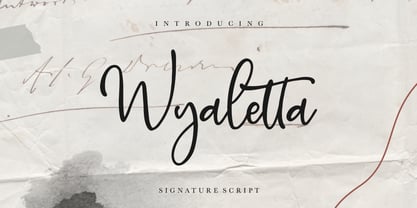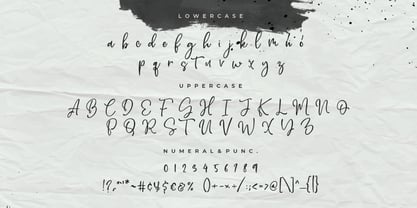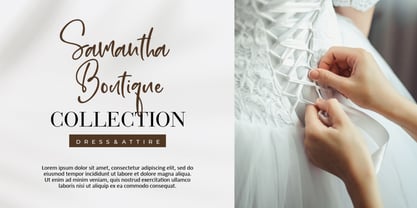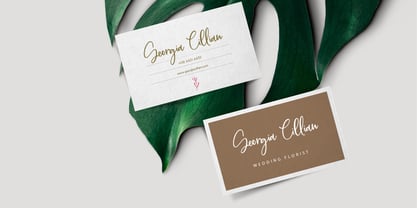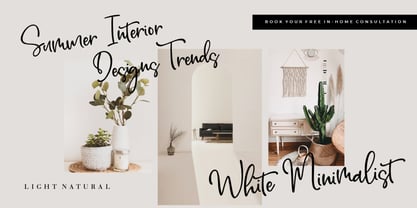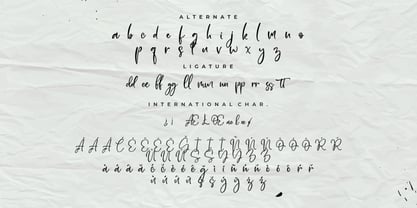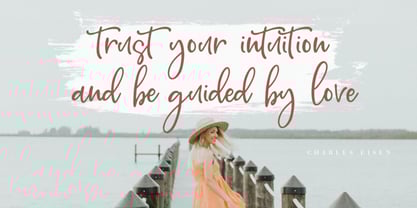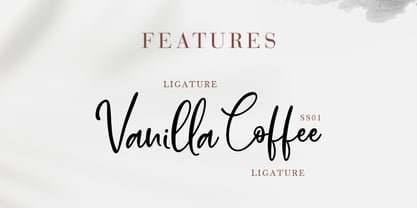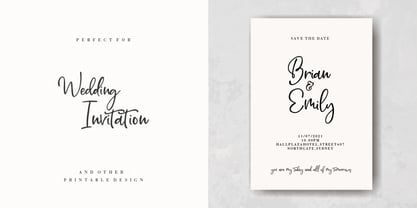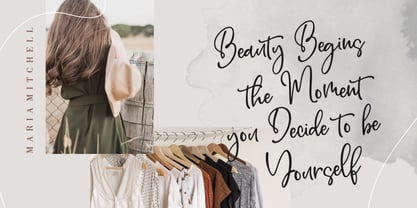
Wyaletta
by Creatype Studio
The Wyaletta Font Family was designed by Rian Rahardi and published by Creatype Studio. Wyaletta contains 1 styles. More about this family
Vyaletta is a handcrafted signature script font with a soft, fluid motion that exudes modern sophistication and an authentic handwritten feel. It balances minimal elegance with warm personal charm, perfect for high-end branding, wedding stationery, and lifestyle creatives. Created for modern creatives who want to blend luxury aesthetics with a personal touch—ideal for Instagram posts, lifestyle blogs, boutique branding, wedding invitations, and product packaging.
"Add an elegant handwritten touch to your design projects with Vyaletta – a signature script font crafted to give your work a warm, personal, and luxurious vibe."
Whether you’re creating a timeless wedding invitation, personal brand logo, or sophisticated packaging, Vyaletta brings character, emotion, and modern charm to every creative project.